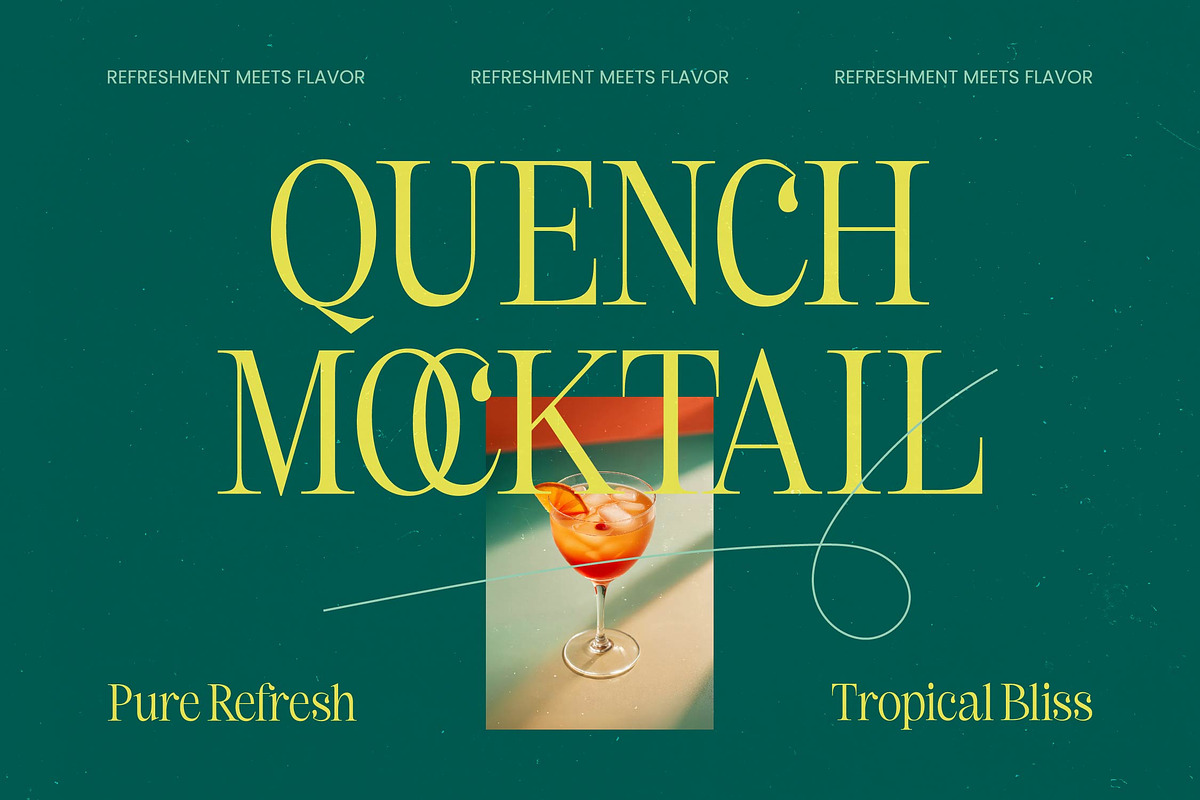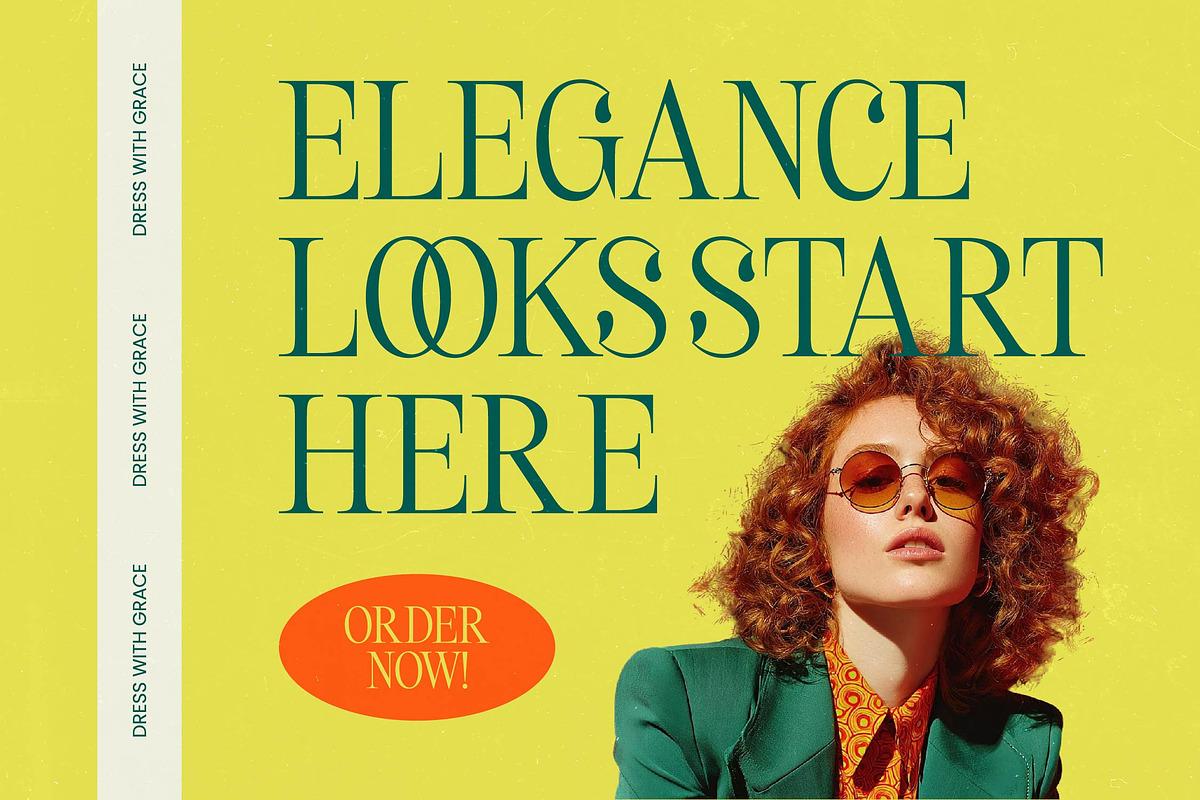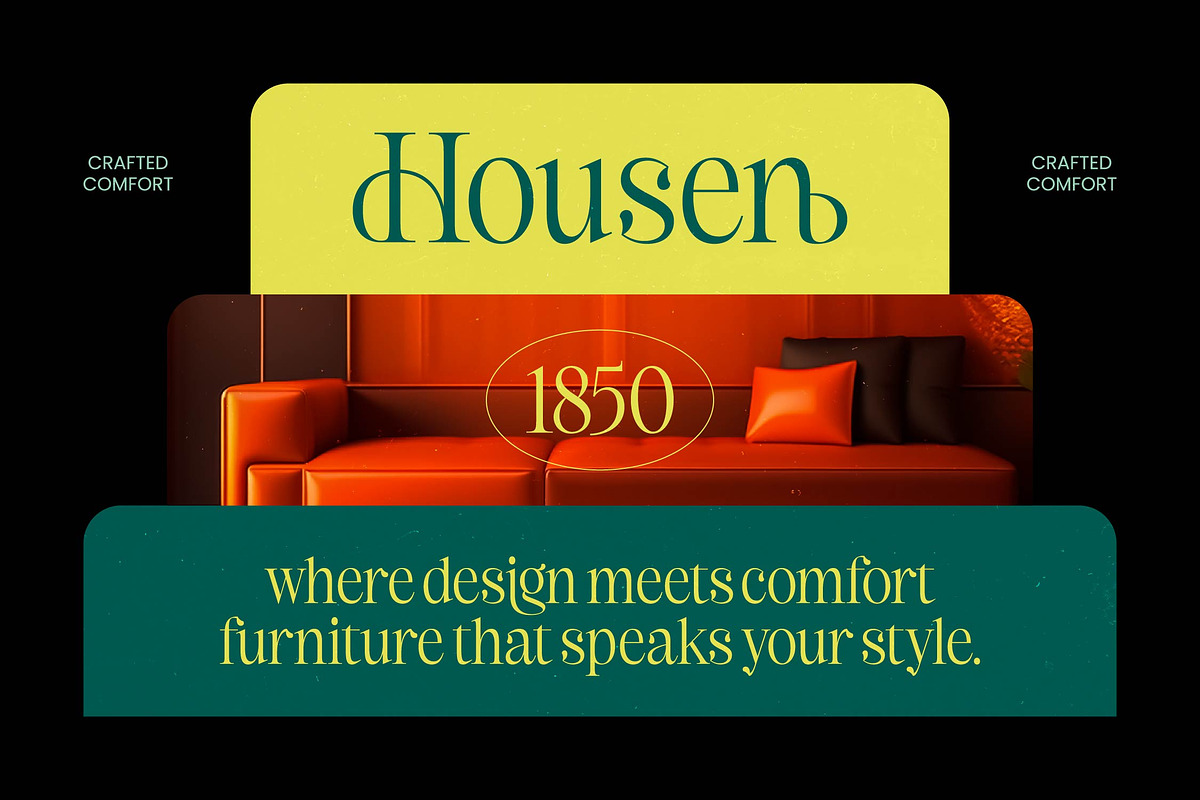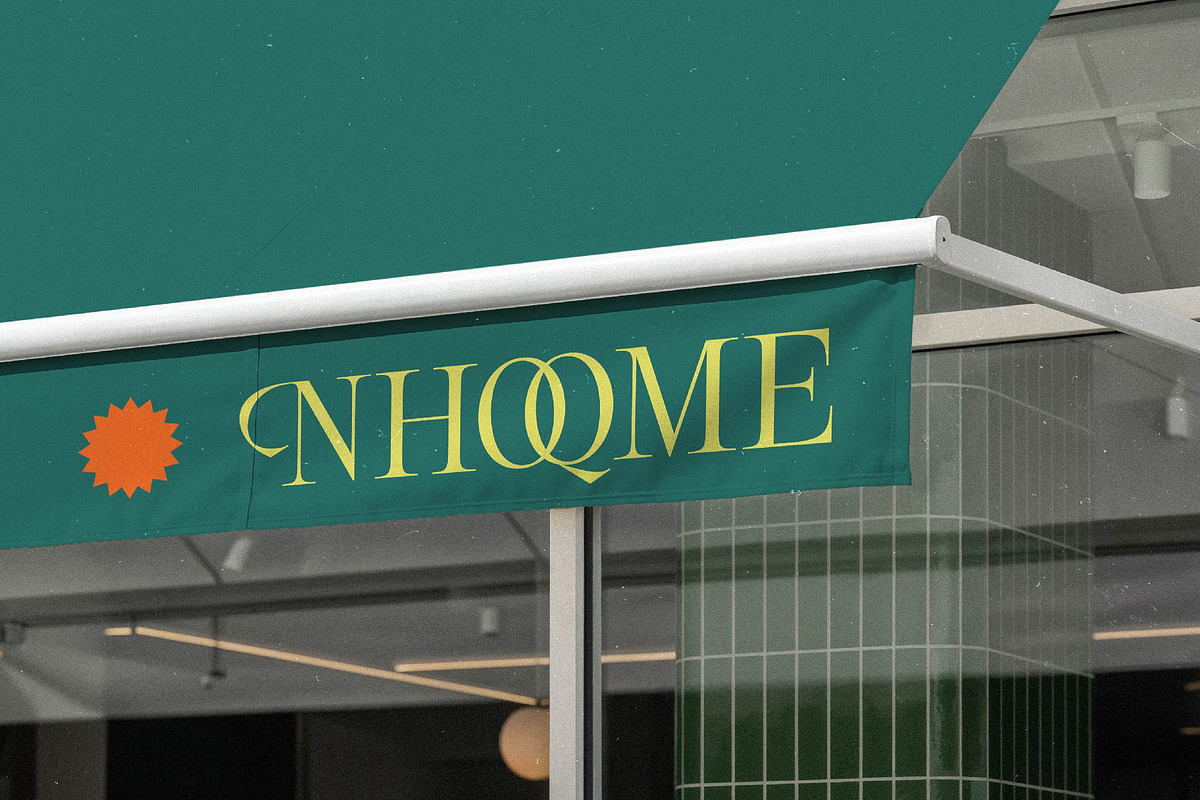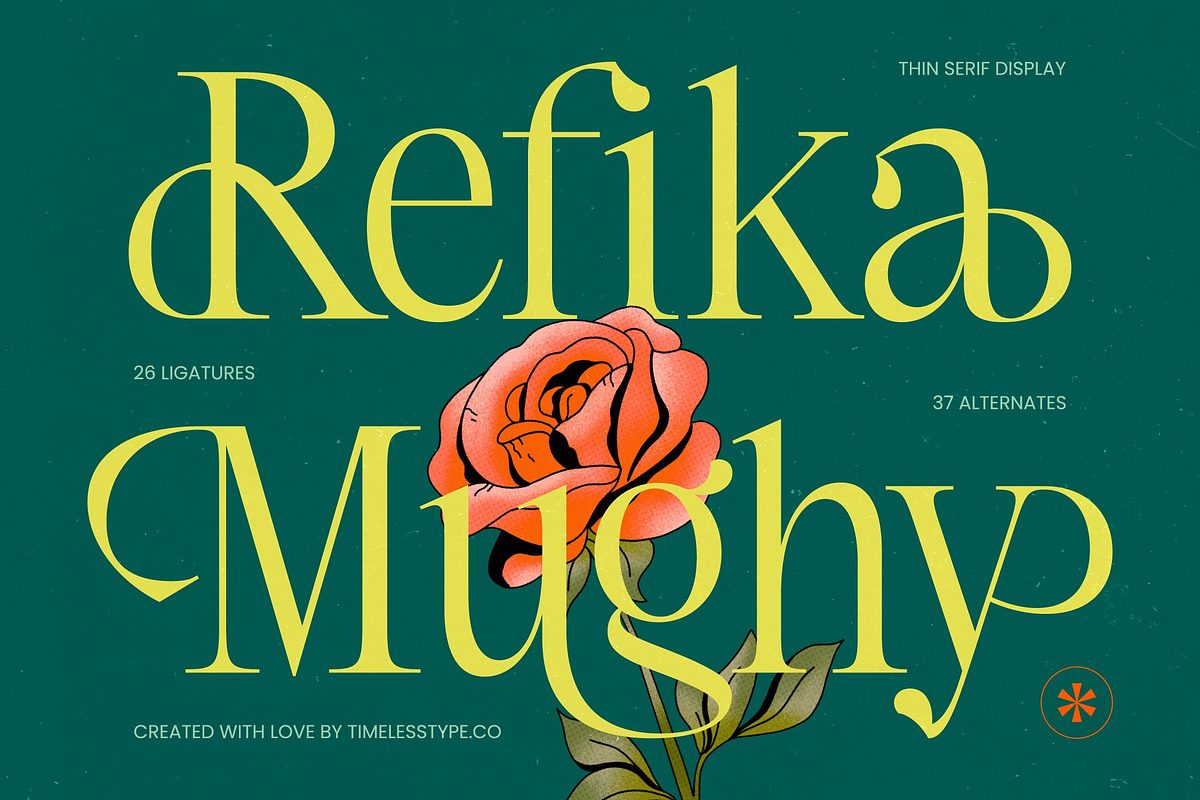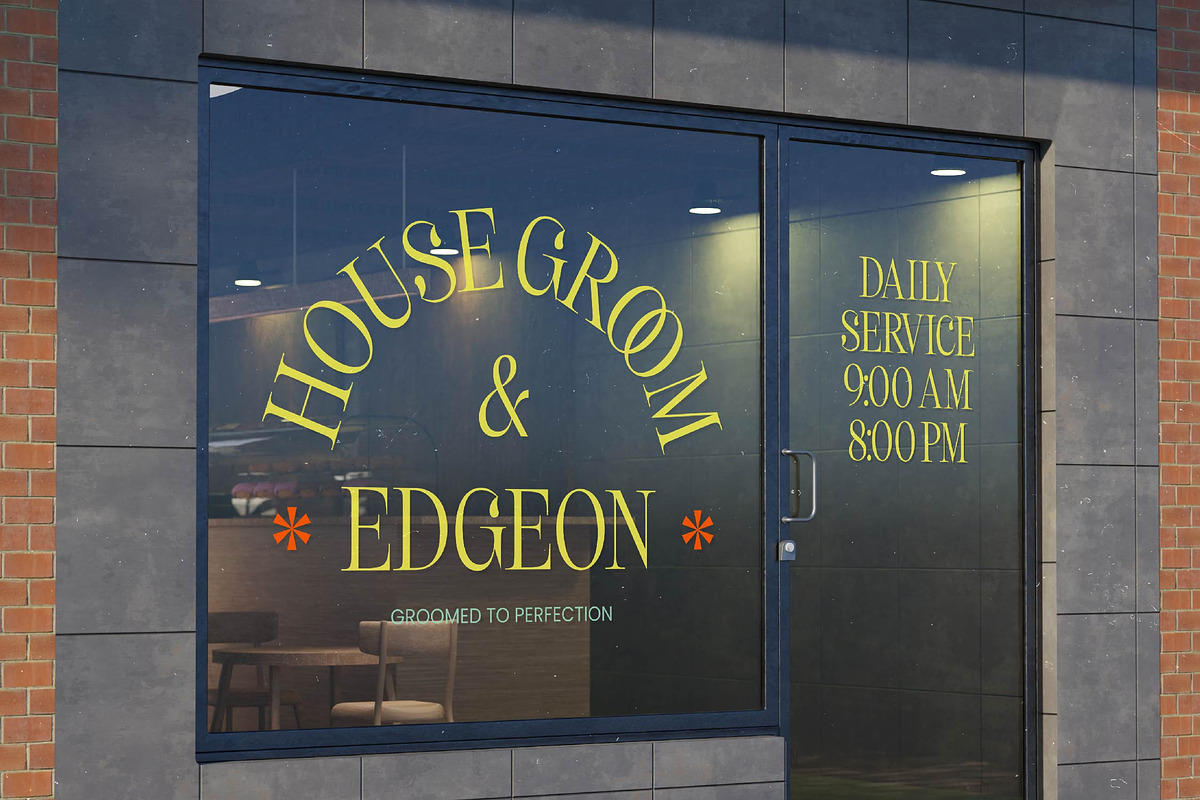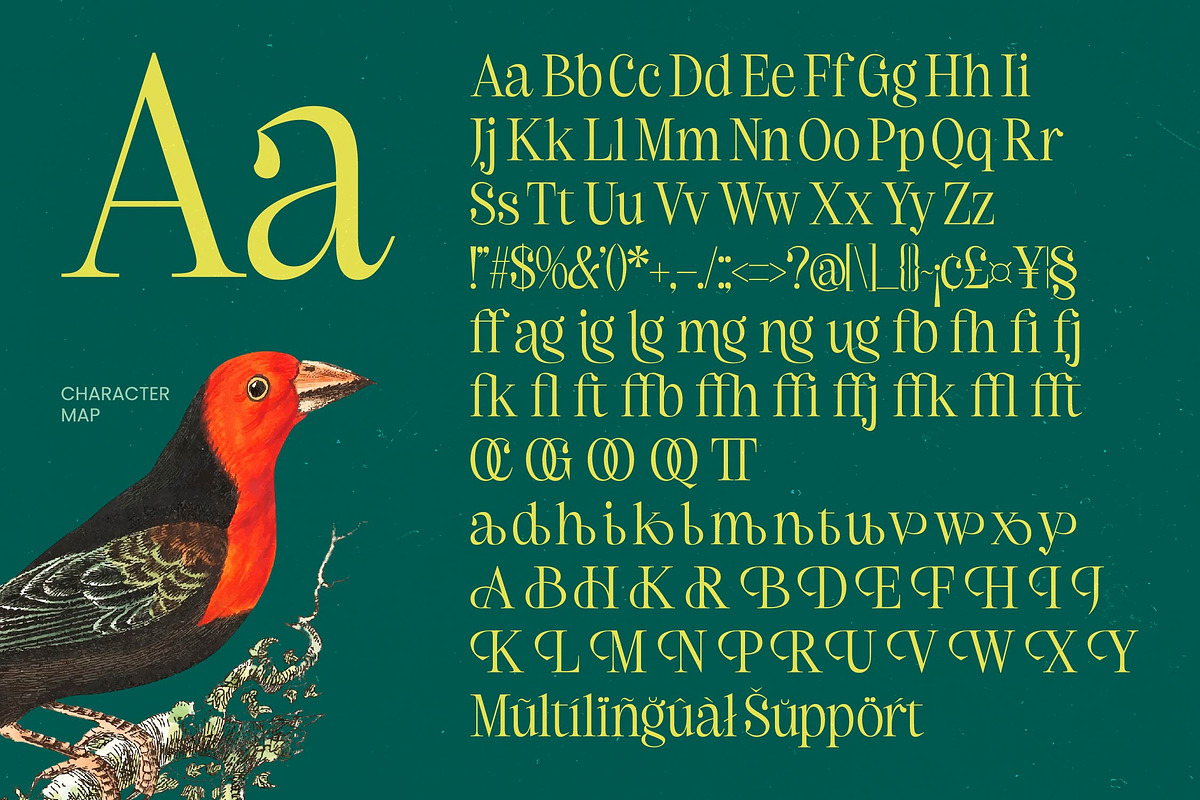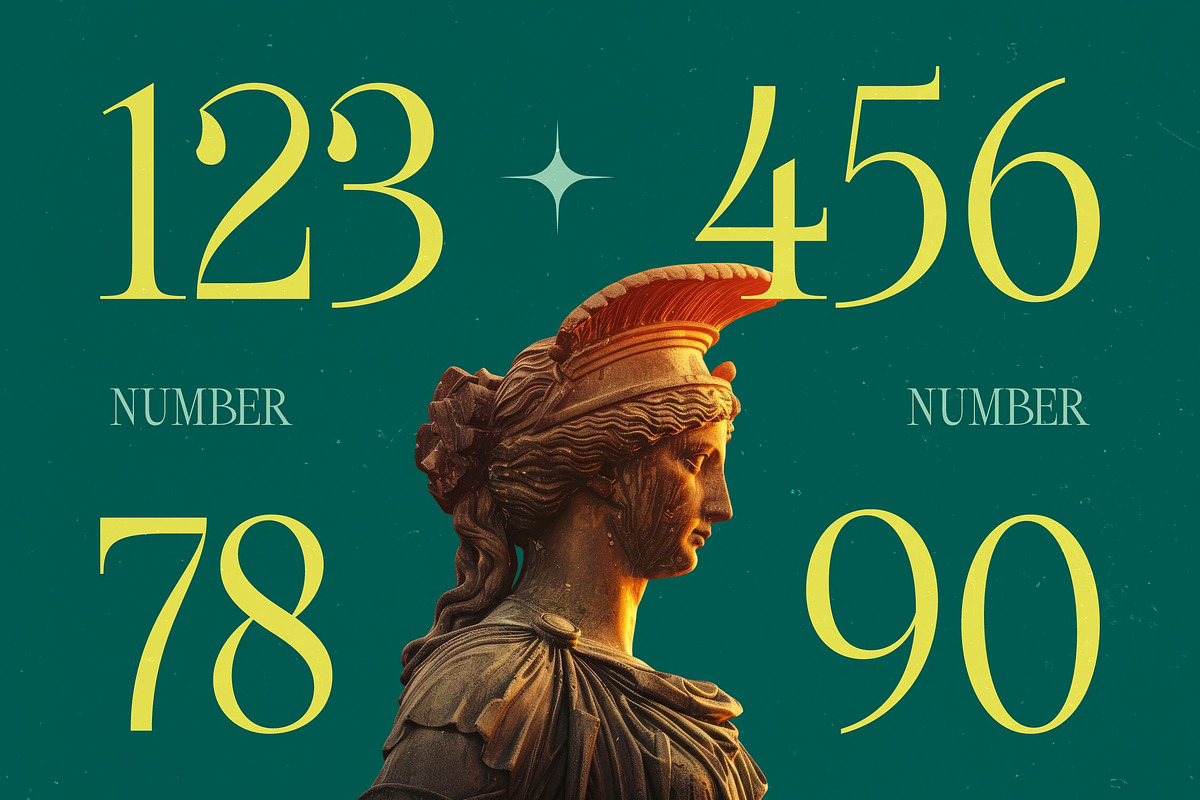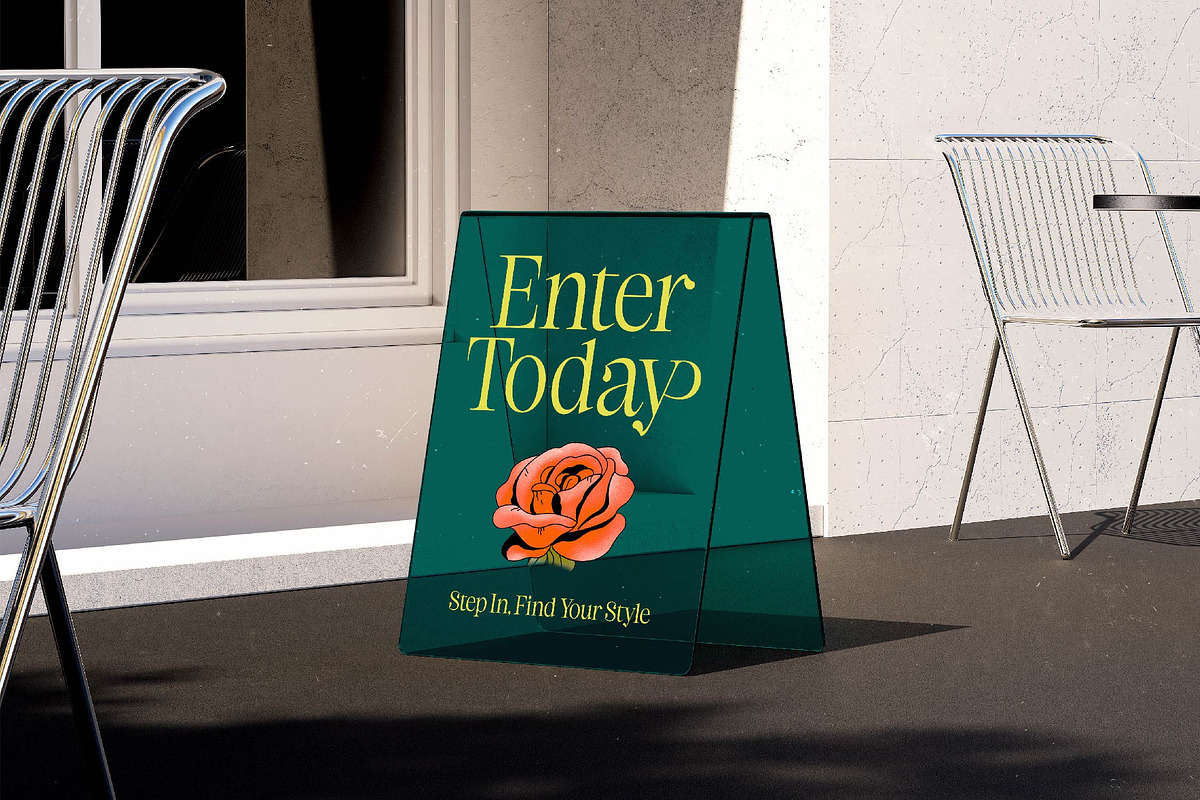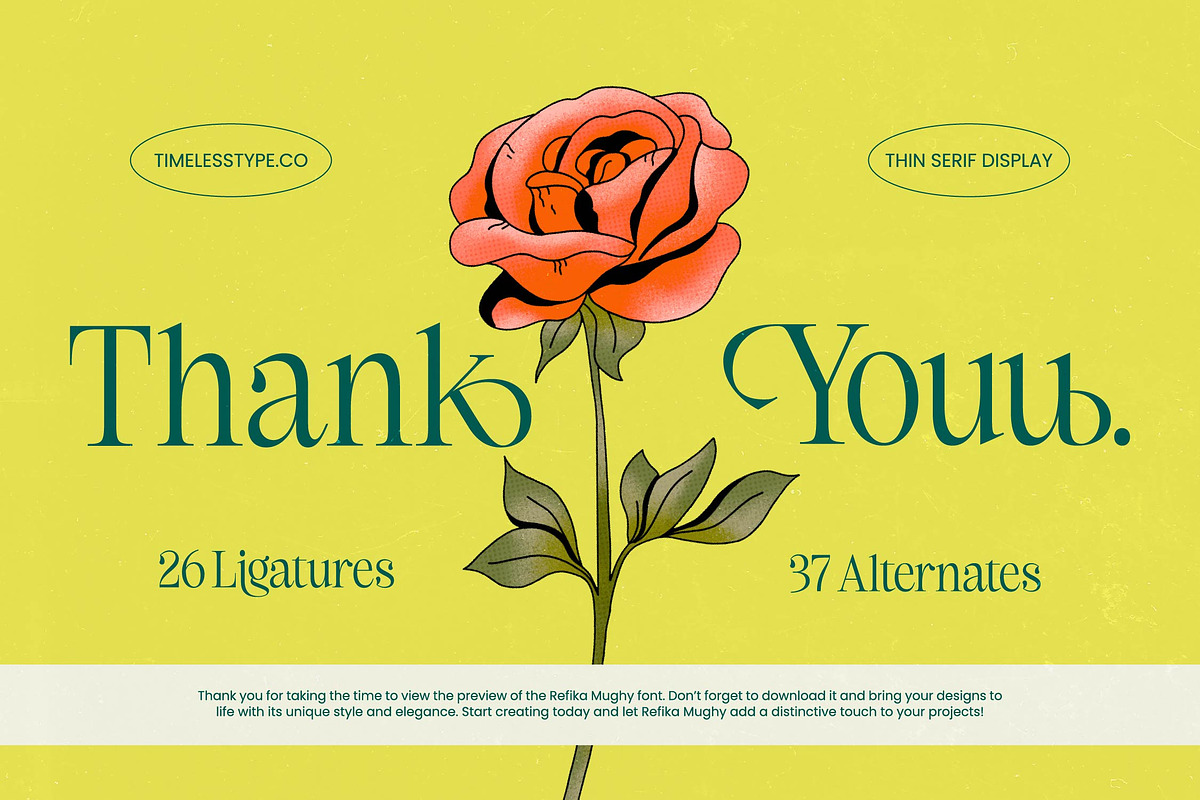
Refika Mughy Thin Serif Display
Refika Mughy – Thin Serif Display , Elevate your design aesthetic with the Refika Mughy – Thin Serif Display, a typeface that embodies sophisticated elegance and modern-classic charm. This high-contrast serif is meticulously crafted to command attention, offering a refined visual identity for projects that require a touch of class. By blending delicate hairlines with sharp, purposeful strokes, Refika Mughy – Thin Serif Display serves as a premier typographic solution for high-end visual storytelling and contemporary layouts.
Precision meets creativity through an impressive collection of 26 ligatures and 37 decorative alternates that allow for endless customization. The Refika Mughy – Thin Serif Display provides designers with the tools to create bespoke typography that feels both handcrafted and professional. Its clean lines and graceful curves ensure a perfect visual balance, making it an essential asset for anyone looking to push the boundaries of display typography.
Bridge the gap between cultures and reach a wider audience with ease. With its extensive multilingual support, Refika Mughy – Thin Serif Display adapts seamlessly across global markets, making it incredibly versatile for international projects. This expansive character set ensures that your brand voice remains consistent and powerful, regardless of the linguistic requirements, providing technical reliability for global communication.
Master the art of luxury branding by applying this typeface to your most prestigious design tasks. The Refika Mughy – Thin Serif Display is perfect for high-end packaging, editorial design, fashion magazines, and premium logo design. Whether used in digital media or print materials, it transforms ordinary text into a statement of luxury, ensuring your brand stands out in the competitive marketplace.